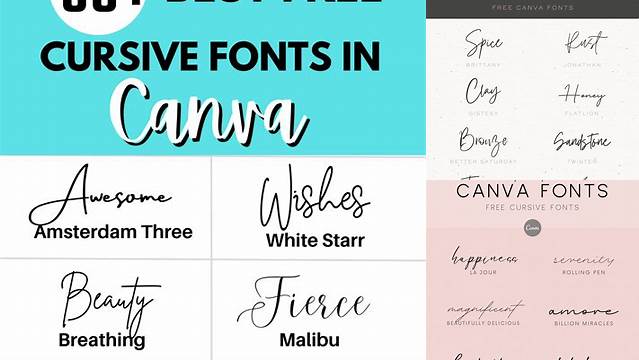
Top Cursive Handwriting Fonts In Canva: Your Ultimate Guide
Hey everyone! If you're anything like me, you're always on the lookout for ways to jazz up your designs and make them stand out. And what better way to do that than with some killer fonts? Today, we're diving deep into the world of best cursive handwriting fonts in Canva. We'll explore some amazing options that will make your designs look like they were crafted with a personal touch. Whether you're working on social media graphics, invitations, or even a website banner, these fonts are sure to add that special something. Canva has a huge library of fonts, and finding the perfect cursive font can be like searching for a needle in a haystack. But don't worry, I've done the hard work for you! We'll cover everything from the most popular choices to some hidden gems, giving you a comprehensive guide to the best cursive handwriting fonts in Canva. Get ready to elevate your design game, guys! Let's get started.
1. Understanding Cursive Fonts and Their Appeal
So, first things first, why are cursive fonts so darn appealing? Well, they bring a sense of elegance, personality, and authenticity that you just can't get from a plain, boring sans-serif font. Best cursive handwriting fonts in Canva offer a unique way to convey a message, making it feel more personal and human. They can instantly make your designs look more sophisticated, creative, and approachable. Think about it: when you receive a handwritten note, it feels special, right? Cursive fonts aim to capture that same feeling in the digital world. They're perfect for adding a touch of warmth and artistry to your projects. Cursive fonts can add a personal touch to your work. They also create a sense of familiarity and human connection. They often evoke a sense of nostalgia and tradition, reminding us of classic handwriting styles used in letters and formal documents. This connection to the past can make your designs feel timeless and elegant. Cursive fonts can also be used to create a sense of movement and flow, drawing the eye across the page and creating a more dynamic visual experience. They can be used in a variety of applications, from branding and marketing materials to invitations and greeting cards. Ultimately, cursive fonts are a great way to add a touch of sophistication and personality to your work.
1.1. The Psychology Behind Cursive Fonts
Let's dive a bit into the psychology of cursive fonts. Believe it or not, the choice of a font can significantly impact how your audience perceives your message. Best cursive handwriting fonts in Canva often evoke feelings of creativity, elegance, and sophistication. They can also add a personal touch, making your audience feel more connected to your message. The flowing, connected nature of cursive fonts often creates a sense of visual rhythm and flow, making them engaging to read. This can be a great way to draw attention to certain elements of your design or create a cohesive visual experience. Cursive fonts, due to their handcrafted appearance, can create a sense of authenticity and uniqueness. People are drawn to designs that feel genuine and original, and cursive fonts can help to achieve that. When used correctly, cursive fonts can enhance the emotional impact of your message. They can evoke feelings of nostalgia, warmth, or creativity, depending on the specific style and application. Make sure you choose the right font to align with the message of the design. Understanding these psychological aspects will help you to choose the right cursive font for your project. The ability to influence the mood and perception of viewers is a powerful tool. Use it to create designs that resonate with your audience and achieve your communication goals.
1.2. Choosing the Right Cursive Font for Your Project
Choosing the right cursive font can be tricky, but it's crucial for making your designs look their best. Best cursive handwriting fonts in Canva come in a variety of styles, each with its own personality and appeal. You need to consider your project's tone, audience, and overall aesthetic. If you're working on a project that requires formality and elegance, you might want to opt for a classic, traditional cursive font with flowing lines and intricate details. Fonts like these are perfect for wedding invitations, formal announcements, or anything that needs a touch of sophistication. On the other hand, if you're aiming for a more casual, friendly, or playful vibe, you can choose a more modern, handwritten-style cursive font with a more relaxed and informal feel. Think of fonts that resemble natural handwriting with slight variations in letter shapes and sizes. These are great for social media posts, greeting cards, or any design that needs to feel approachable and authentic. Another factor to consider is readability. Some cursive fonts can be challenging to read, especially in small sizes or long blocks of text. Make sure the font you choose is legible, especially for the intended purpose. Test out the font at different sizes and in different contexts to make sure it's easy to understand. Also, keep in mind the overall aesthetic of your project. Is it minimalist, vintage, modern, or something else? The cursive font should complement the other design elements, such as colors, images, and layout. Try different fonts and see which ones work best.
2. Top Cursive Fonts Available in Canva
Alright, let's get down to the nitty-gritty and explore some of the best cursive handwriting fonts in Canva that you can use right now! I've scoured the Canva library to bring you a curated list of my favorites. I'll cover the fonts I use most often, their strengths, and in what situations they shine. This list is a great starting point whether you're a design newbie or a seasoned pro. Each font has its own unique character, so take your time and experiment with different styles to see which ones best suit your project. Remember, the goal is to find a font that not only looks great but also aligns with your brand and your audience. So, grab your design tools, and let's dive in!
2.1. Popular Cursive Font Choices
Let's start with the crowd-pleasers: some of the best cursive handwriting fonts in Canva that are beloved by designers everywhere. These fonts are popular for a reason – they look great and are versatile enough to be used in a wide variety of projects. They offer a great balance of style and readability. First up, we have Playlist Script. This font is a classic choice for good reason. It has elegant strokes and a beautiful flow, making it perfect for invitations, logos, and any design that needs a touch of sophistication. It's easy to read and adds a touch of refinement to any project. Another excellent option is Dancing Script. This font has a more informal, handwritten feel, making it perfect for greeting cards, social media posts, or anything that needs a friendly touch. It's very versatile and can be used in many different contexts. Consider Allura for a more modern take on the cursive font. It features clean lines and a stylish appearance, making it ideal for branding materials, websites, and any design that needs a contemporary flair. Lastly, Great Vibes is a beautiful font with a vintage feel, making it great for quotes, headings, and any design that needs a touch of nostalgia. These fonts provide a diverse range of options. They are a perfect starting point for finding the right cursive font for your project.
2.2. Elegant and Sophisticated Cursive Fonts
If you're looking to add a touch of elegance and sophistication to your designs, Canva has some fantastic cursive fonts that fit the bill perfectly. These fonts often have a more classic feel, with flowing strokes and intricate details. They're perfect for projects that need a touch of luxury and refinement. One standout font is Sacramento. It's an exquisite font that is ideal for wedding invitations, formal announcements, or any design that needs a touch of luxury. It's a graceful and timeless option. Another excellent choice is Lobster Two. It has a playful yet sophisticated vibe, making it ideal for headlines, logos, or any project that requires a touch of elegance with a hint of creativity. Alex Brush is another great option, with its flowing, graceful strokes and elegant appearance. It's perfect for branding, quotes, or any design that needs a touch of sophistication. These fonts offer a range of options to suit different styles and preferences. They will add a touch of class and sophistication to your projects. Remember, the key is to choose a font that aligns with your overall design aesthetic and the message you want to convey. They will definitely make your designs stand out!
2.3. Modern and Playful Cursive Fonts
For designs that need a more contemporary and playful feel, there are plenty of modern cursive fonts in Canva that can do the trick. These fonts often have a more relaxed, informal feel, with clean lines and unique styles. They're ideal for social media graphics, websites, or any design that needs a touch of fun and personality. One great option is Satisfy. This font features a unique, whimsical style. It's perfect for adding a touch of fun and playfulness to your designs. It works well for invitations, greeting cards, or any project that needs a lighthearted touch. Another excellent choice is Caveat. It has a more informal, handwritten feel, making it perfect for social media posts, websites, or any design that needs a friendly touch. Yellowtail is another great option, with its flowing, slightly quirky strokes and stylish appearance. It's perfect for headlines, logos, or any design that needs a touch of individuality. Pacifico has a very recognizable retro vibe. It is great for projects that need a fun, nostalgic vibe. These fonts offer a range of styles to suit different needs. They are guaranteed to add a touch of fun and personality to your projects. Remember, the key is to choose a font that fits your overall design aesthetic and the message you want to convey.
3. How to Use Cursive Fonts Effectively in Canva
Okay, so you've found some amazing best cursive handwriting fonts in Canva, but how do you use them effectively? Using cursive fonts can be tricky, as they can easily become illegible or clash with other design elements if not used carefully. Here are some tips and tricks to help you make the most of these beautiful fonts. First off, consider your context. Cursive fonts work best for short phrases, headings, or small amounts of text. Avoid using them for large blocks of body text, as this can quickly become difficult to read. Secondly, readability is key. Always make sure your chosen font is legible, especially at the size you're using it. Test your font in different sizes and contexts to ensure that it's easy to understand. Another important point is contrast. Ensure there's enough contrast between your cursive font and the background. This helps the text stand out and makes it easier to read. Avoid using light-colored fonts on light backgrounds or dark fonts on dark backgrounds. Experiment with color combinations to make your text pop. Also, think about pairing cursive fonts with other fonts. Pair your cursive font with a simple, clean sans-serif font for body text or a heading to create a balanced and visually appealing design. Make sure your fonts complement each other and don't clash. Finally, be mindful of letter spacing and kerning. Sometimes, cursive fonts need some adjustments to the spacing between letters to improve readability. Canva allows you to adjust both letter spacing and kerning, so use these tools to fine-tune the appearance of your text.
3.1. Pairing Cursive Fonts with Other Fonts
One of the keys to using cursive fonts effectively is knowing how to pair them with other fonts. Choosing the right combination of fonts can elevate your designs and create a cohesive and visually appealing look. The best cursive handwriting fonts in Canva work well with a range of other fonts. The goal is to create a balance between style and readability. When pairing a cursive font, it's best to start with a clean, simple sans-serif font for body text. This provides a contrast to the flowing strokes of the cursive font, making the overall design easier to read. A classic example of this is pairing a font like Playlist Script with a sans-serif like Open Sans or Lato. For headings, you can choose a slightly bolder sans-serif font or even a contrasting serif font. The key is to ensure the font doesn't compete with your cursive font for attention. When choosing font combinations, it's important to consider the overall tone of your design. If you're going for a formal and elegant look, you might pair your cursive font with a classic serif font and a clean sans-serif font. For a more casual and playful vibe, you can combine a cursive font with a more modern sans-serif font. Remember to also think about the visual balance of your design. If your cursive font is very ornate, you might want to balance it with a simpler font for the rest of your text. On the other hand, if your cursive font is more subtle, you can try pairing it with a slightly bolder font to add visual interest. Experiment with different font combinations and see what works best for your specific project. By carefully selecting your font pairings, you can create designs that are both stylish and easy to read, improving the overall impact of your work.
3.2. Text Size and Readability Tips
Text size and readability are crucial when working with cursive fonts in Canva. Since cursive fonts can sometimes be challenging to read, getting the text size right is super important. Best cursive handwriting fonts in Canva need to be legible at the size you're using them. The right size depends on the context. Always test your font to make sure it is easy to read. For headings and short phrases, you can use a larger font size to make them stand out and grab attention. Aim for a size that’s clearly visible from a distance, and makes sure your message is the first thing people see. For body text, use a smaller font size to maintain readability. The goal is to ensure your text is easy to read without being too overpowering. Make sure your font size is large enough for your audience to easily understand. Spacing is also key. Adjusting letter spacing (kerning) and line spacing (leading) can greatly impact readability. Adjust the space between letters in your cursive font to make it more legible. A little adjustment can make a big difference. Make sure the lines are adequately spaced, especially in blocks of text. Too little space can cause the text to appear cramped and difficult to read, while too much space can make the text look disconnected. Contrast is also important. Be sure to use a font color that contrasts with the background color. Test your design at different sizes to ensure it’s easy to read, even at a distance. Consider the context of your design. How and where will your design be viewed? This will greatly influence the size and readability of your text. By paying close attention to text size and readability, you can make sure that your message is clear. You will also be able to create designs that are easy to read and visually appealing.
3.3. Color Choices for Cursive Fonts
Color choices play a huge role in making your cursive fonts stand out and enhancing your designs. The best cursive handwriting fonts in Canva look great with various color combinations. Choosing the right color palette is crucial for creating a visually appealing and effective design. When selecting colors for your cursive font, think about the overall mood and message you want to convey. Soft, pastel colors can create a gentle, elegant feel, while bolder, brighter colors can add energy and excitement. Experiment with different color combinations to see what works best. High contrast is very important for cursive fonts. This helps make your text stand out. Make sure there's enough contrast between the font color and the background. Avoid using a light-colored cursive font on a light background, or a dark cursive font on a dark background. Instead, consider pairing a dark cursive font with a light background or a light cursive font with a dark background. Black cursive fonts on white backgrounds are a classic choice that provides excellent readability. Don't be afraid to explore different color schemes. Consider using complementary colors (colors that sit opposite each other on the color wheel) to create a vibrant and eye-catching design. You can also try using analogous colors (colors that sit next to each other on the color wheel) to create a more harmonious and subtle design. Keep the background color in mind. Make sure it doesn't clash with the cursive font. For example, if you're using a bold cursive font, consider using a neutral background color to avoid visual overload. The color of your cursive font can add an extra layer of meaning. Remember to choose colors that align with your overall design and the message you want to convey. By carefully selecting your color choices, you can create designs that are both stylish and easy to read. They will also be visually appealing.
4. Canva Design Ideas with Cursive Fonts
Now that you have a good understanding of the best cursive handwriting fonts in Canva and how to use them, let's get your creative juices flowing with some fun design ideas. Cursive fonts can be used in various ways. These ideas will help you see how you can apply cursive fonts in your projects. Whether you're creating social media posts, invitations, or branding materials, these ideas will give you a starting point. Remember to experiment and have fun with it. Your imagination is the only limit! Let's explore some of these design ideas.
4.1. Social Media Graphics and Posts
Social media is a perfect place to use cursive fonts to add a touch of personality and creativity. Best cursive handwriting fonts in Canva can make your posts stand out in a crowded feed and capture your audience's attention. Think about using cursive fonts for your headlines, quotes, or call-to-action phrases. You can also use them to create custom text overlays on your images. For example, you could use a beautiful cursive font to highlight a special offer or promote a new blog post. When designing social media graphics, remember to keep your audience in mind. Tailor the font style to suit the style of your brand and resonate with your target demographic. Cursive fonts can add a sense of elegance, authenticity, or playfulness to your designs. Experiment with different font pairings and color combinations. Use contrasting colors to make your text pop and grab attention. Be sure to use a font that looks good in different sizes. Make sure your text is easy to read on different devices, including mobile phones. Social media provides a great opportunity to experiment with different design styles. Have fun and see what works best for your brand and audience. Don't be afraid to try new things and see what catches the eye.
4.2. Invitations and Greeting Cards
Cursive fonts are perfect for creating invitations and greeting cards that have a personal and special touch. Best cursive handwriting fonts in Canva add elegance and sophistication to any event or occasion. Think about using cursive fonts for the names of guests, event details, or a heartfelt message. Cursive fonts add a touch of elegance to wedding invitations, birthday cards, and other special announcements. You can also use them for creating custom monograms or adding a decorative element to your design. When designing invitations or greeting cards, consider the overall theme and style of the event. Choose a cursive font that complements the theme. Formal events may benefit from a classic and elegant cursive font. A more informal event may need a fun, modern cursive font. Cursive fonts can add an extra layer of personalization to your invitations. Remember to test your design to make sure it's easy to read, especially in print. Experiment with different font sizes, colors, and layouts to create invitations and cards that are both beautiful and easy to understand. Cursive fonts can turn your cards into keepsakes.
4.3. Logo Design and Branding Materials
Cursive fonts can play a significant role in logo design and branding materials, helping to create a unique brand identity. Best cursive handwriting fonts in Canva can be used to add a sense of personality, elegance, or authenticity to your brand. They can be used to create unique logos or to add a touch of creativity to your brand. When using cursive fonts for logo design, select a font that aligns with your brand's values and target audience. A cursive font can convey a sense of luxury, trust, or creativity. Be sure to keep your logo simple and memorable, and ensure it's recognizable at different sizes. Cursive fonts can also be used in other branding materials, such as business cards, websites, and social media profiles. Use the same cursive font for consistency. The font should complement your brand's overall design aesthetic. If your brand is all about handcrafted goods, a handwritten font can be perfect. A formal brand can use a classic cursive font to convey elegance and sophistication. When using a cursive font for branding, consider readability and versatility. Ensure your font looks good in print and digital media, and on various backgrounds. Cursive fonts can greatly enhance your brand identity, leaving a lasting impression on your audience. By carefully selecting the right cursive font, you can create a visual identity that truly reflects your brand.
5. Tips for Finding More Cursive Fonts in Canva
Canva has a huge library of fonts, and finding the perfect cursive font can sometimes feel like searching for a needle in a haystack. But don't worry, I've got some tips to help you discover the best cursive handwriting fonts in Canva and expand your font collection. These suggestions will make your font search more efficient. Let's explore some of these tips and tricks to help you uncover the hidden gems.
5.1. Using Canva's Font Filters
Canva's font filters are your best friend when searching for fonts. They allow you to narrow your search. They help you find the right fonts quickly and easily. Best cursive handwriting fonts in Canva can be found by using the filters. When you're in the text editing panel, click on the font dropdown menu. You'll see several options for filtering fonts. Start by selecting the